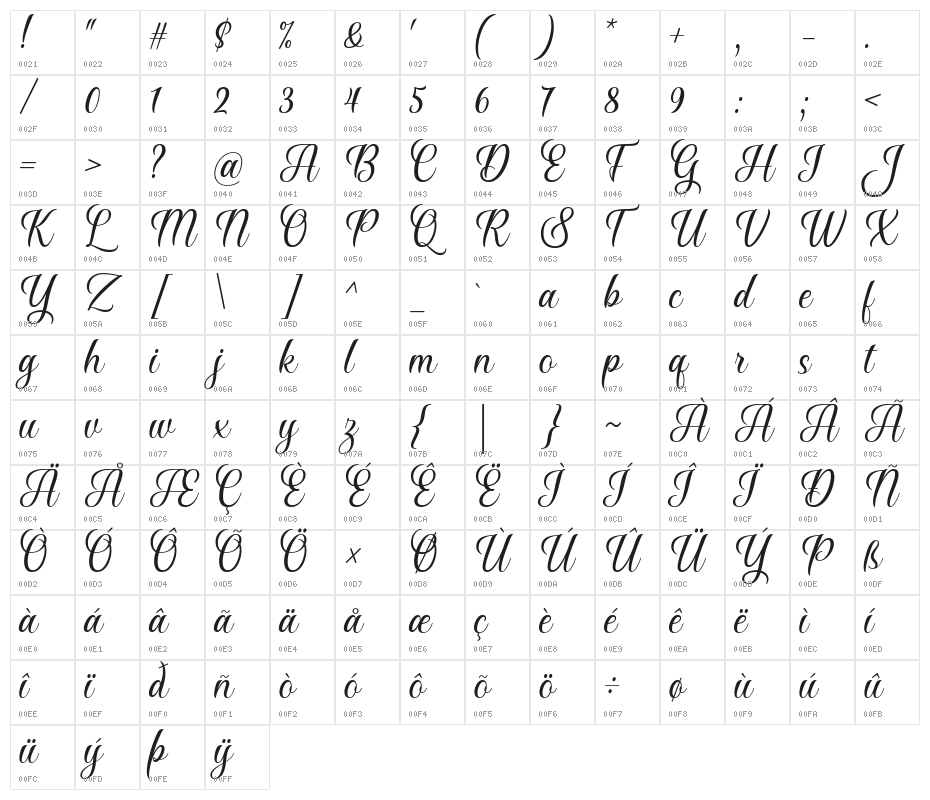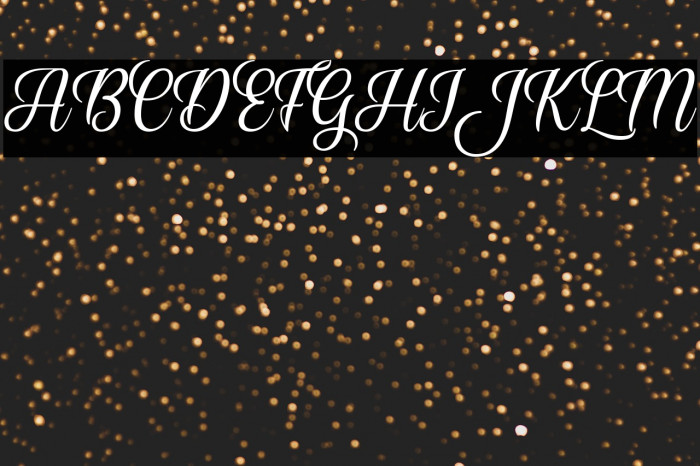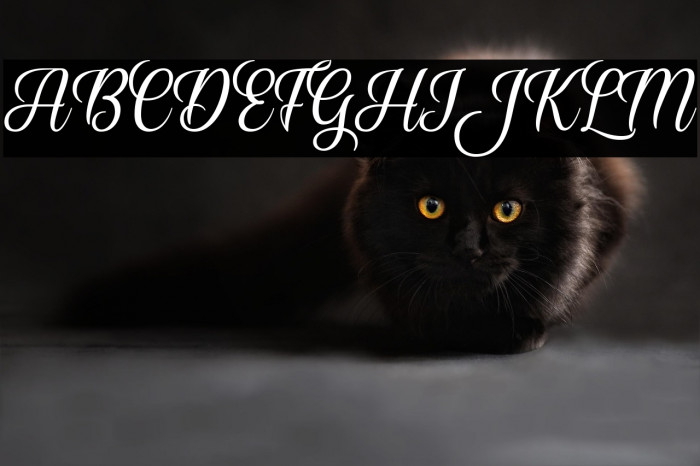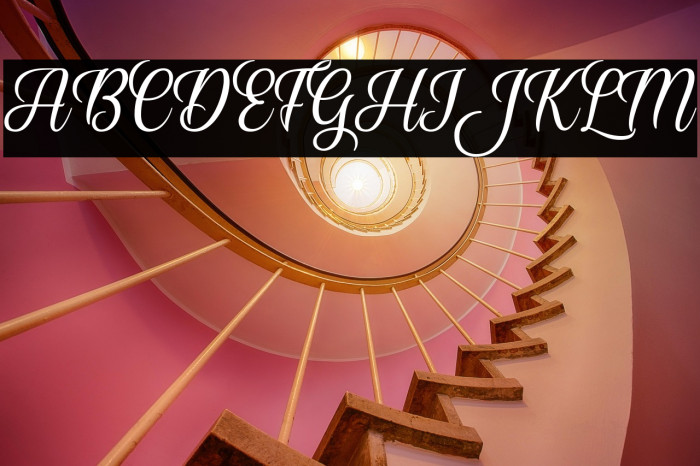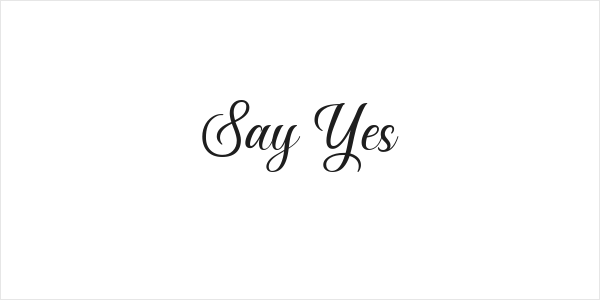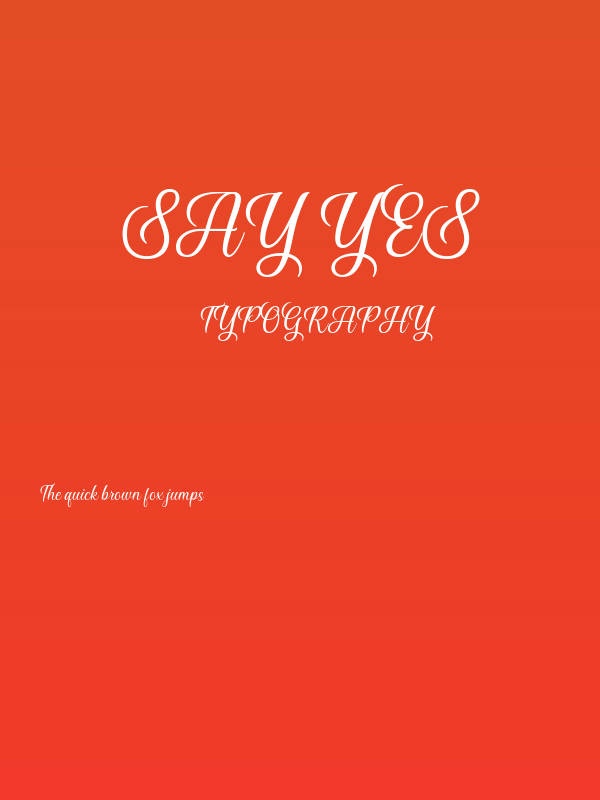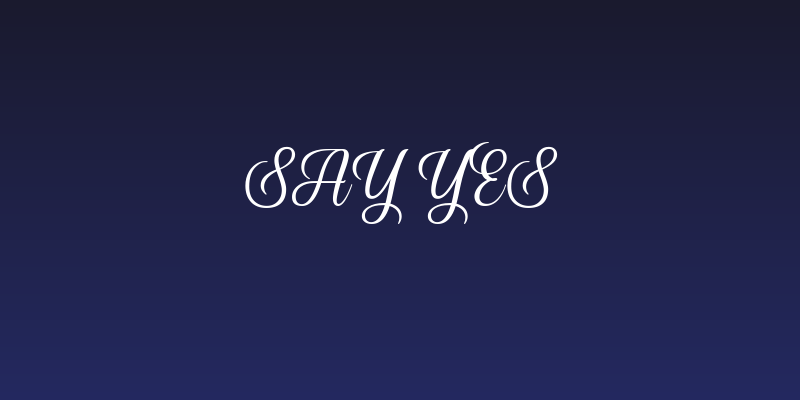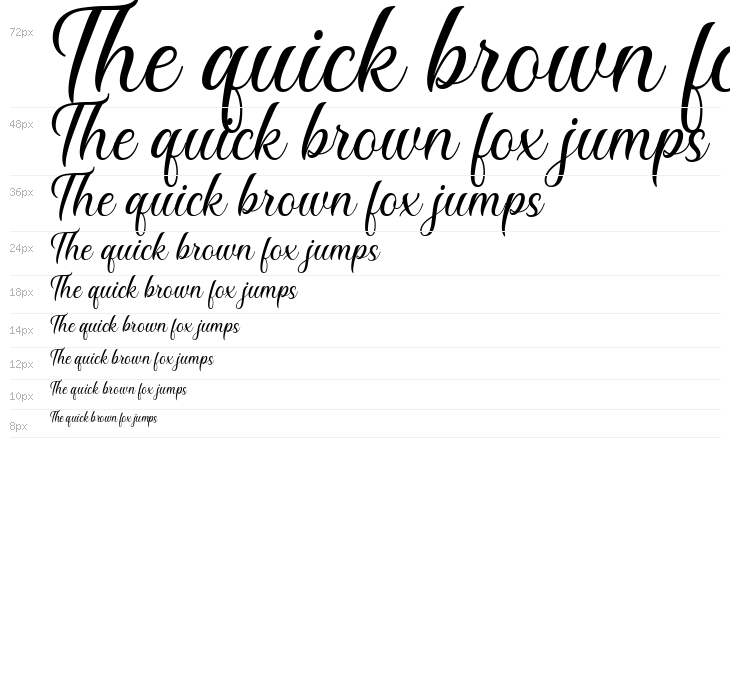
Say Yes Font
Say Yes Description
This font features a flowing, elegant script style with a high degree of cursive flair. The characters are interconnected, creating a seamless and sophisticated appearance. The uppercase letters are slightly more ornate, with sweeping curves and loops that add a touch of grandeur. The lowercase letters maintain a consistent flow, enhancing readability while retaining the decorative nature. Numbers and special characters are designed to match the overall aesthetic, with similar curves and flourishes. The font's design is reminiscent of traditional calligraphy, making it suitable for formal and decorative applications.
| Use Case | Logos, Invitations, Decorative text |
| Proposed Projects | Ideal for wedding invitations, elegant branding, greeting cards, and decorative signage. |